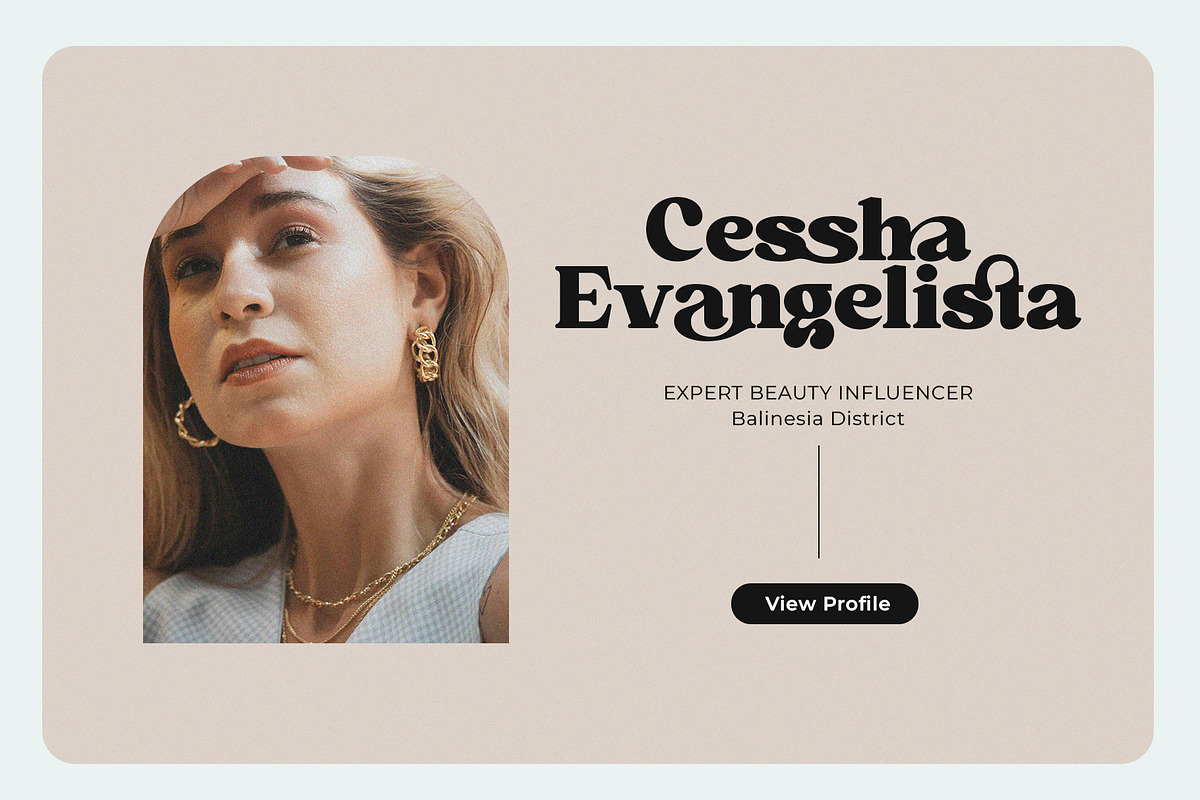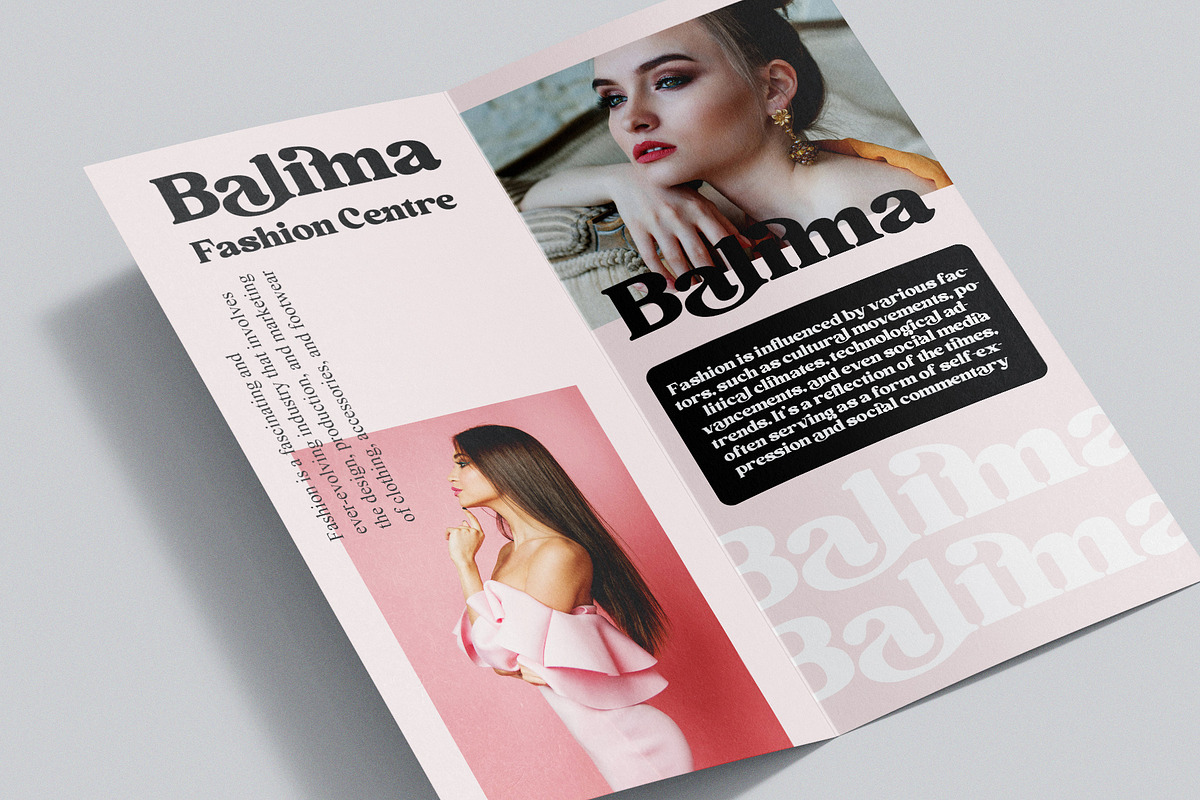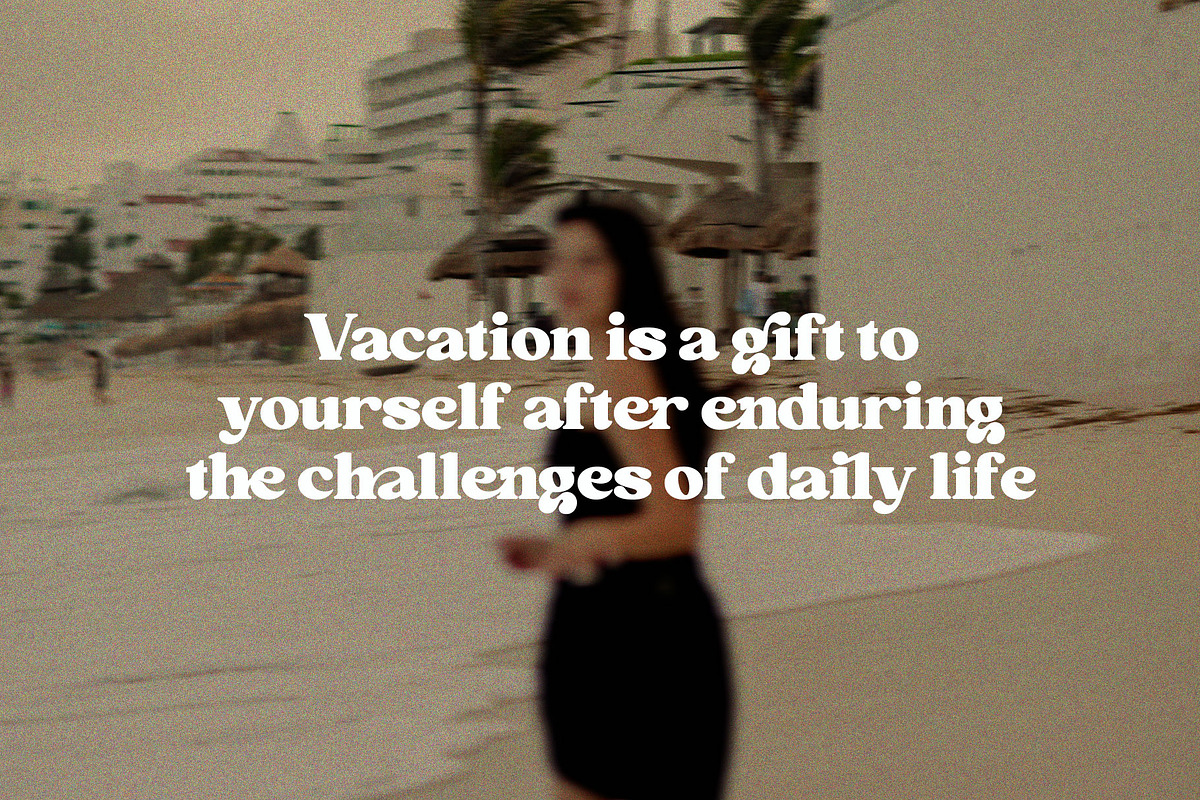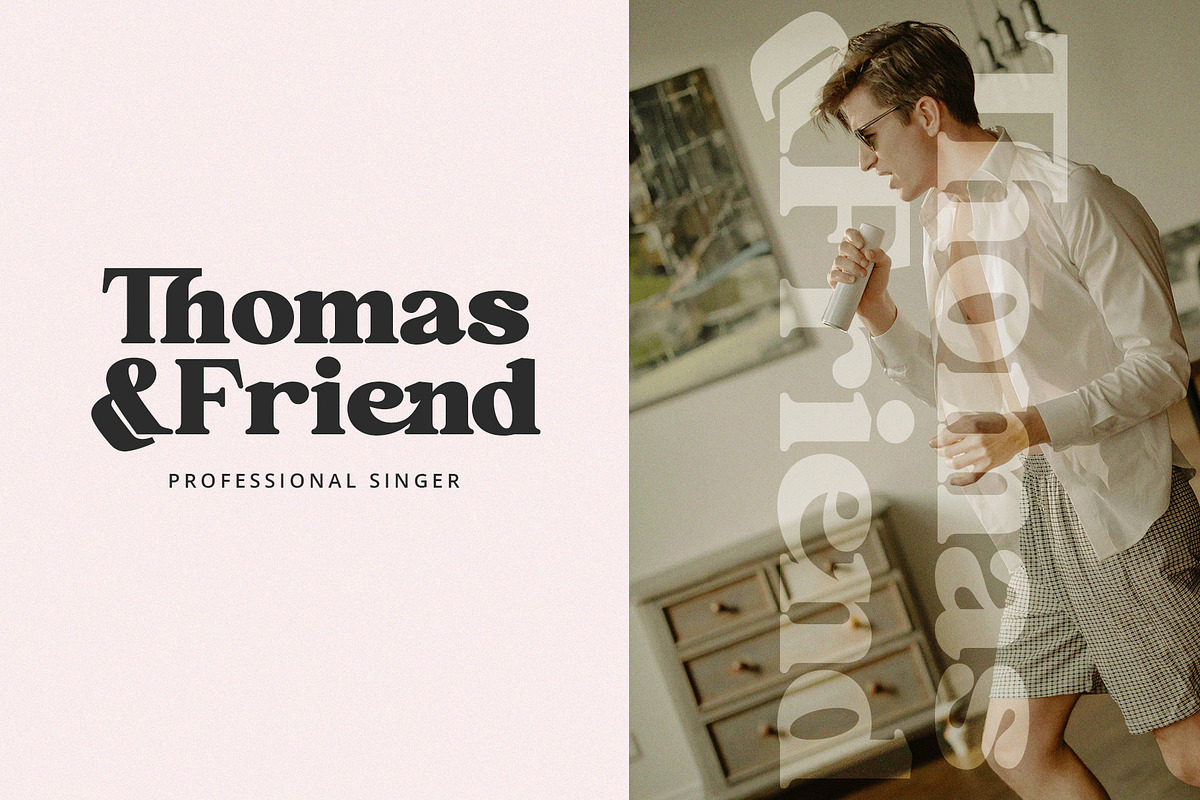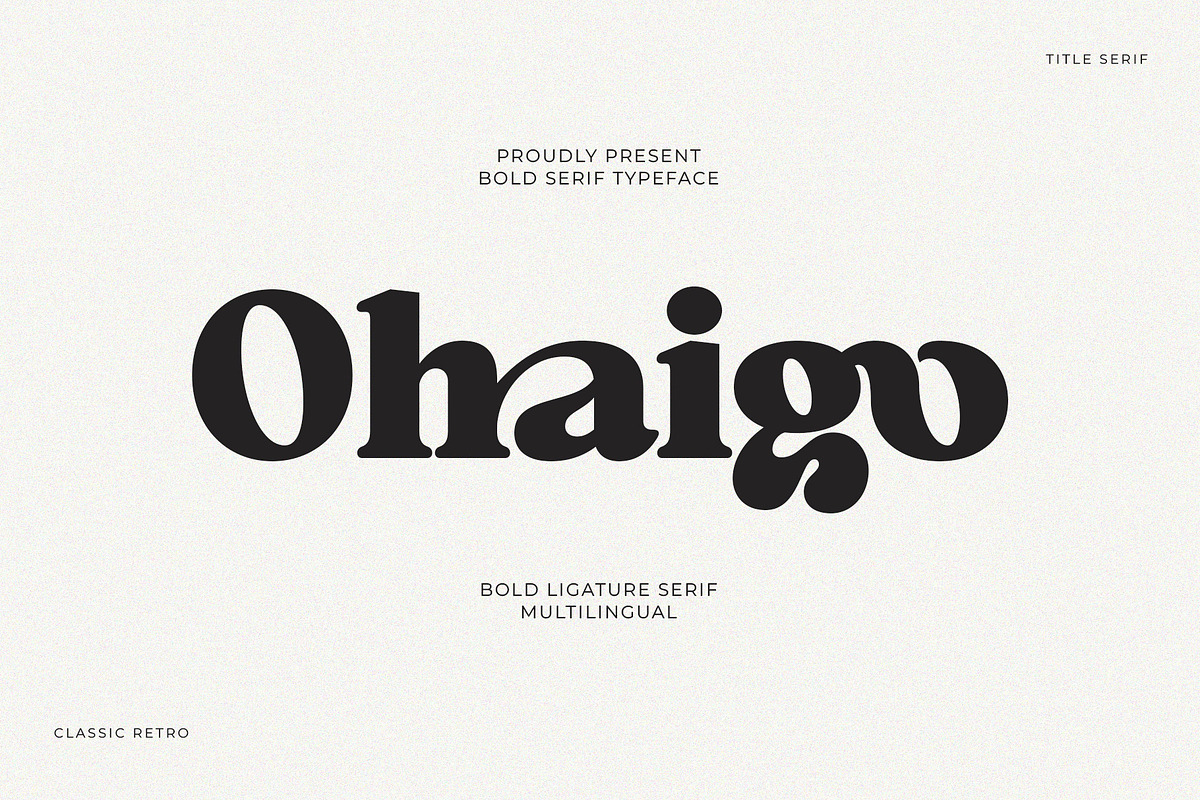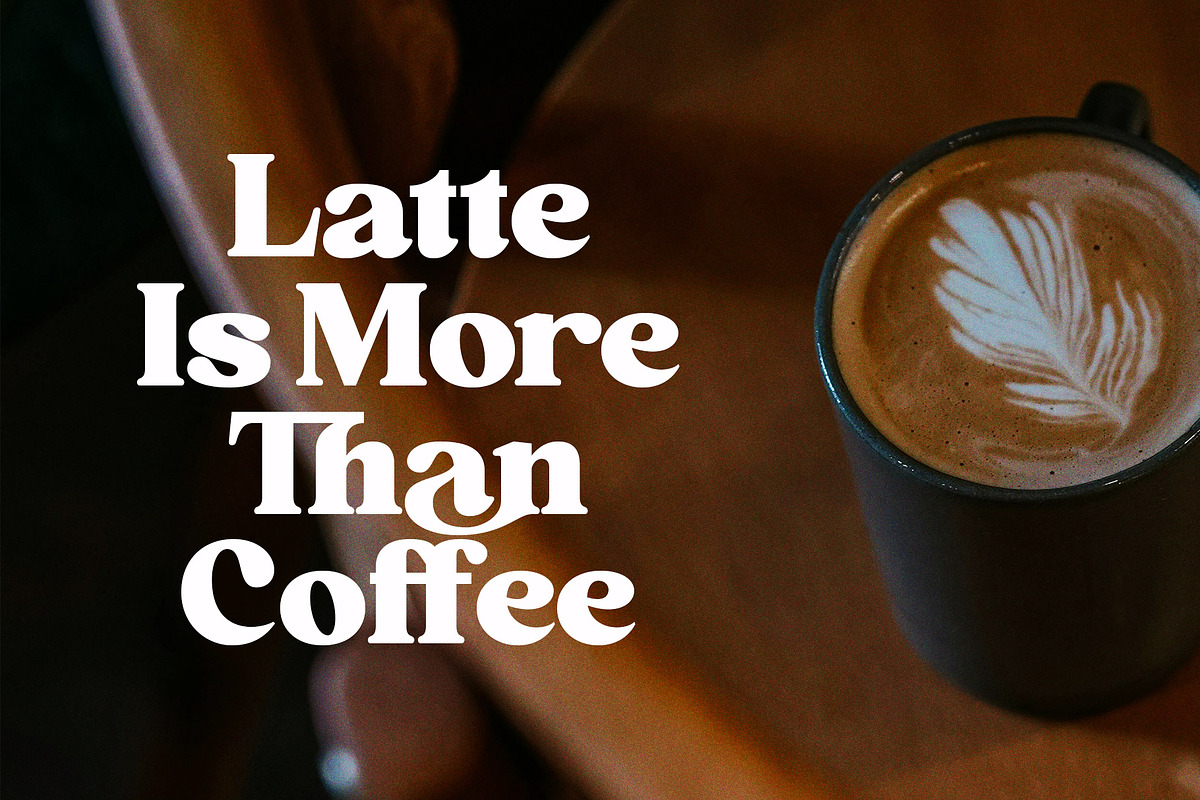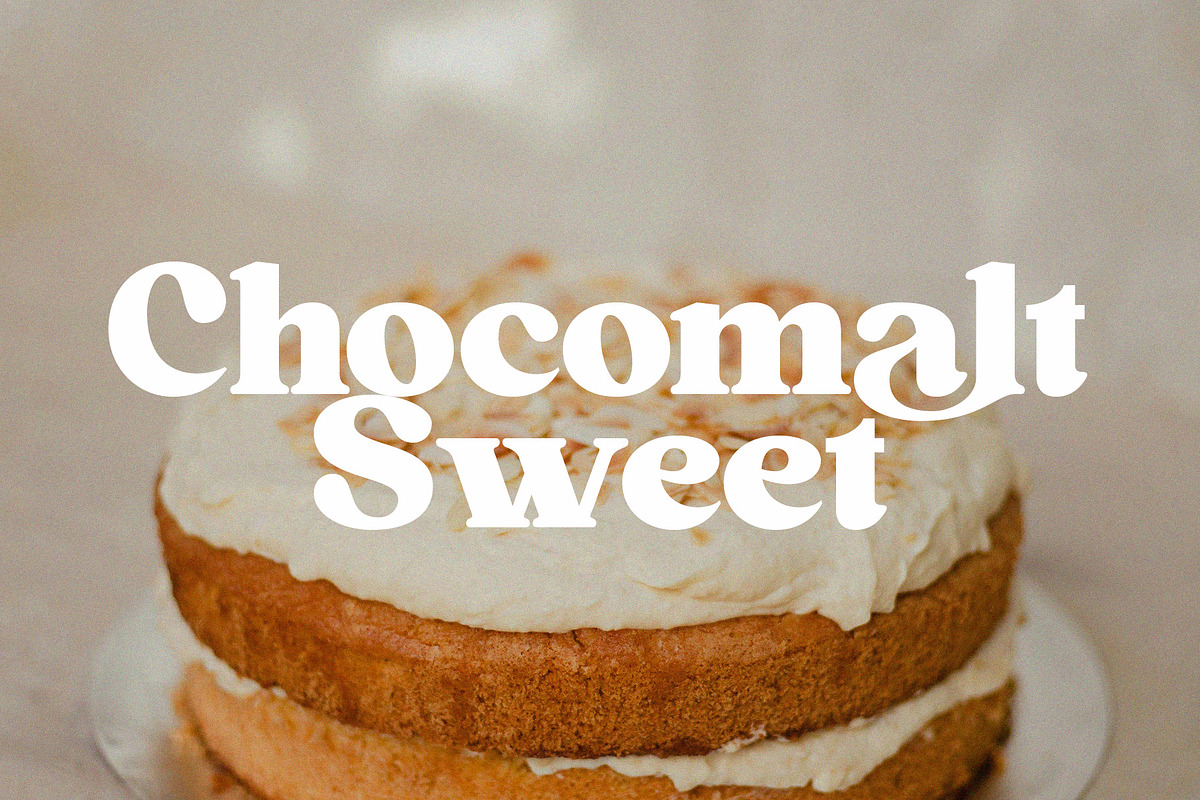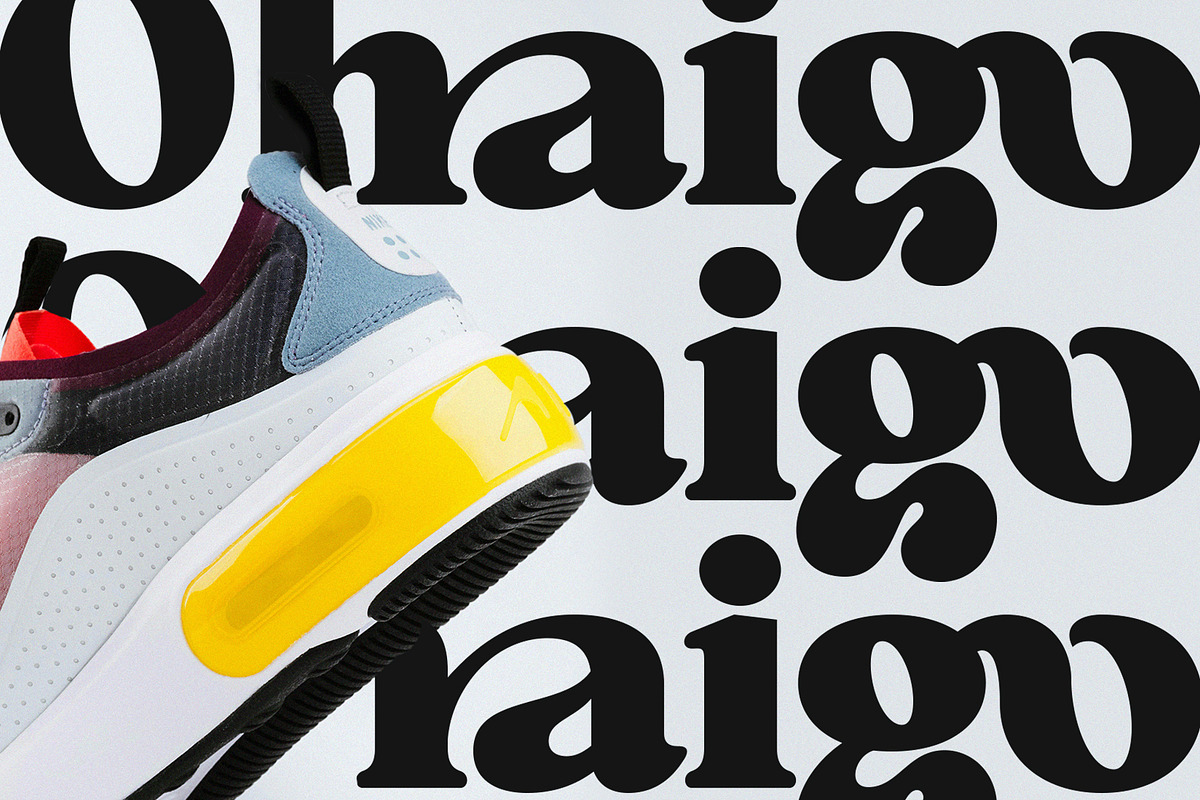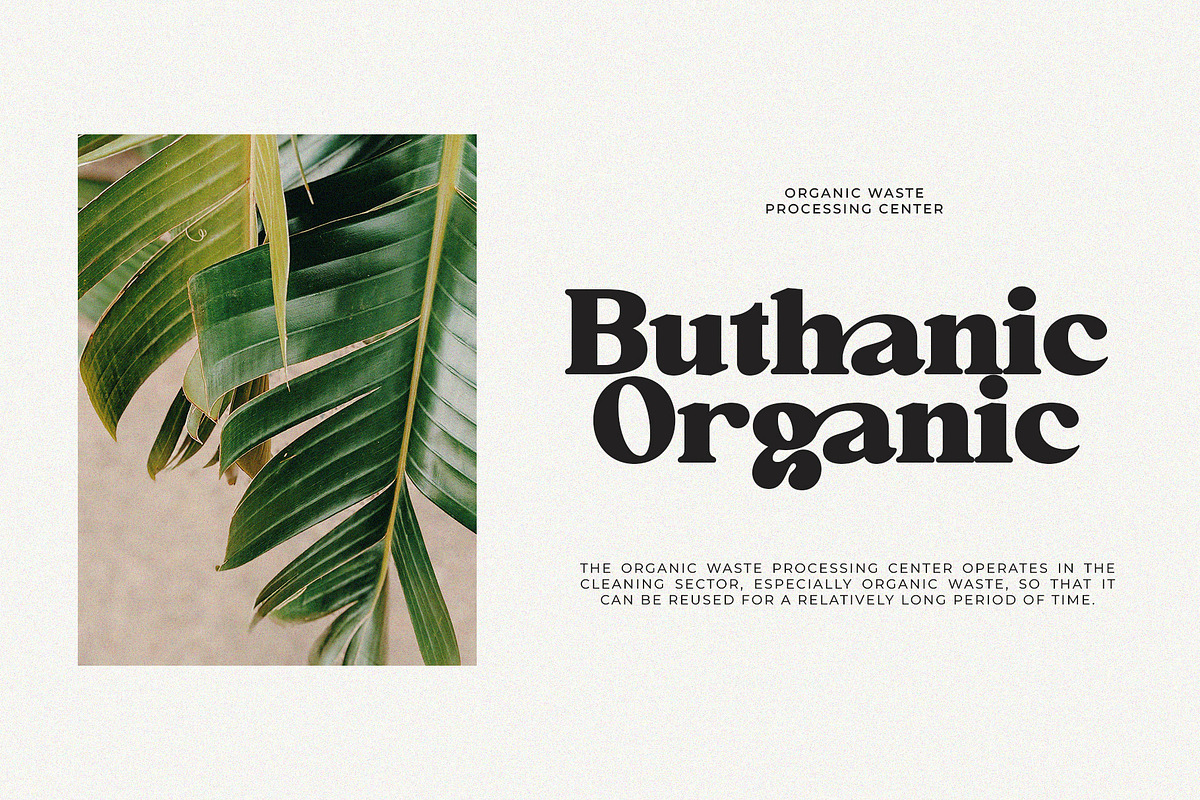
Ohaigo Serif Typeface
This Ohaigo Serif, a bold retro-classic typeface designed to bring strong character and visual impact to your projects. With its clean and well-crafted letterforms, this font is perfect for both digital and print use. Whether you're working on posters, headlines, branding, or editorial layouts, Ohaigo Serif adds a timeless retro charm while keeping your design sharp, stylish, and attention-grabbing.